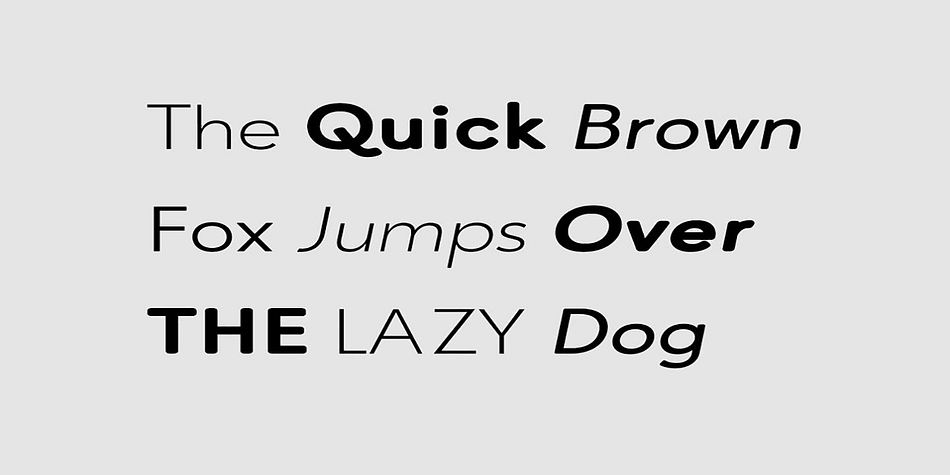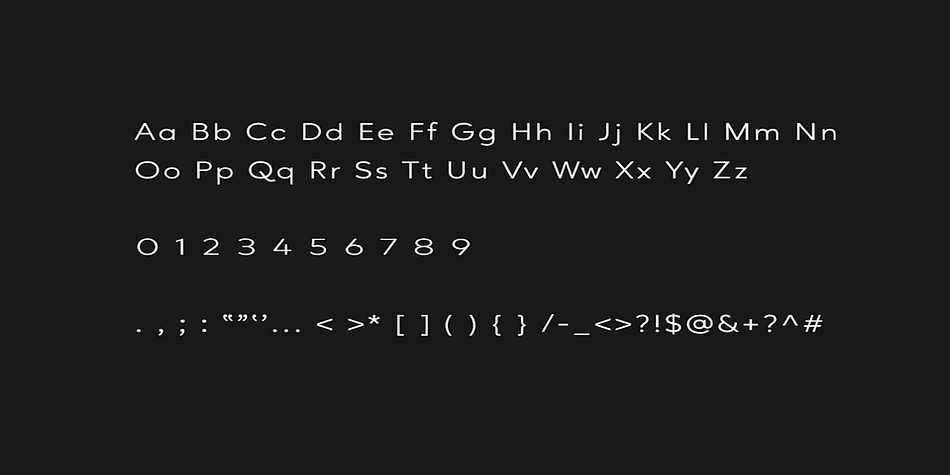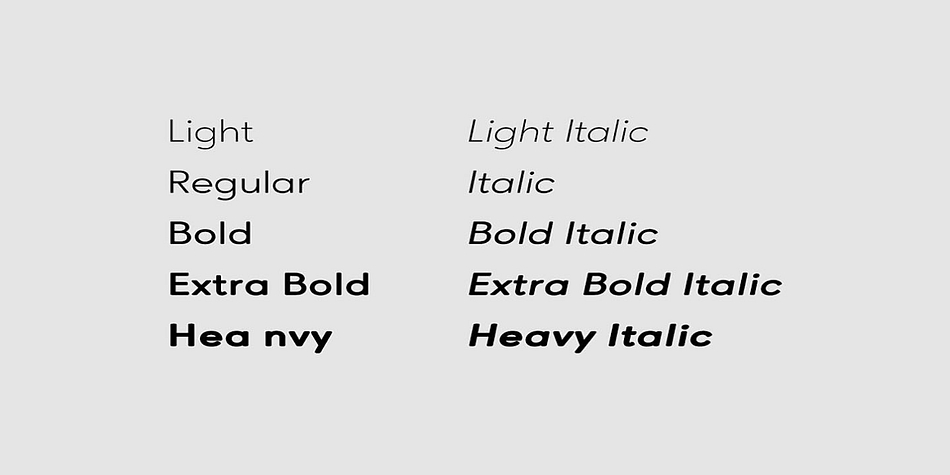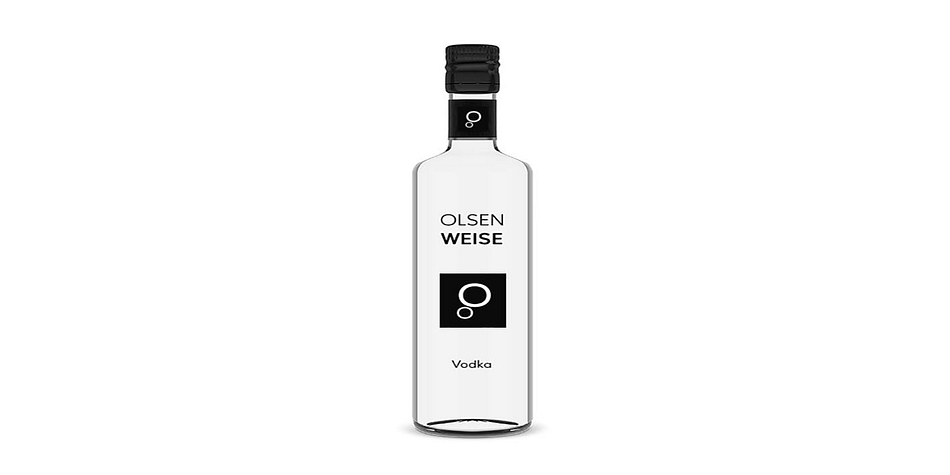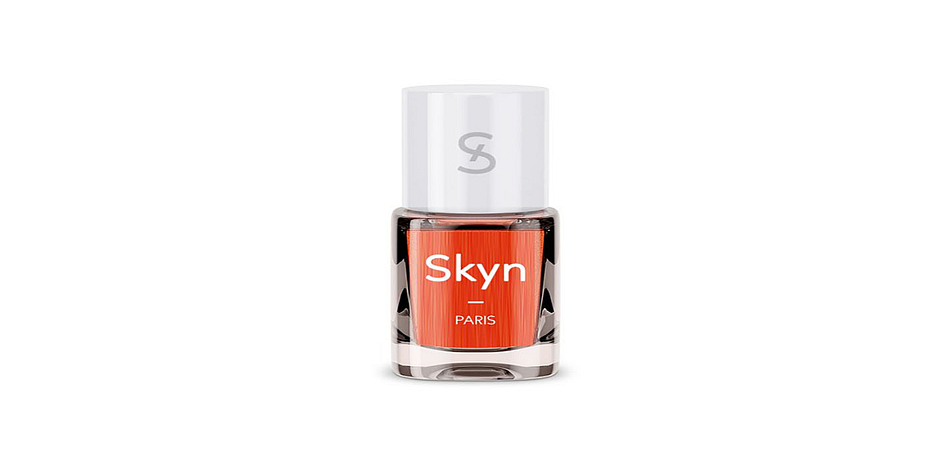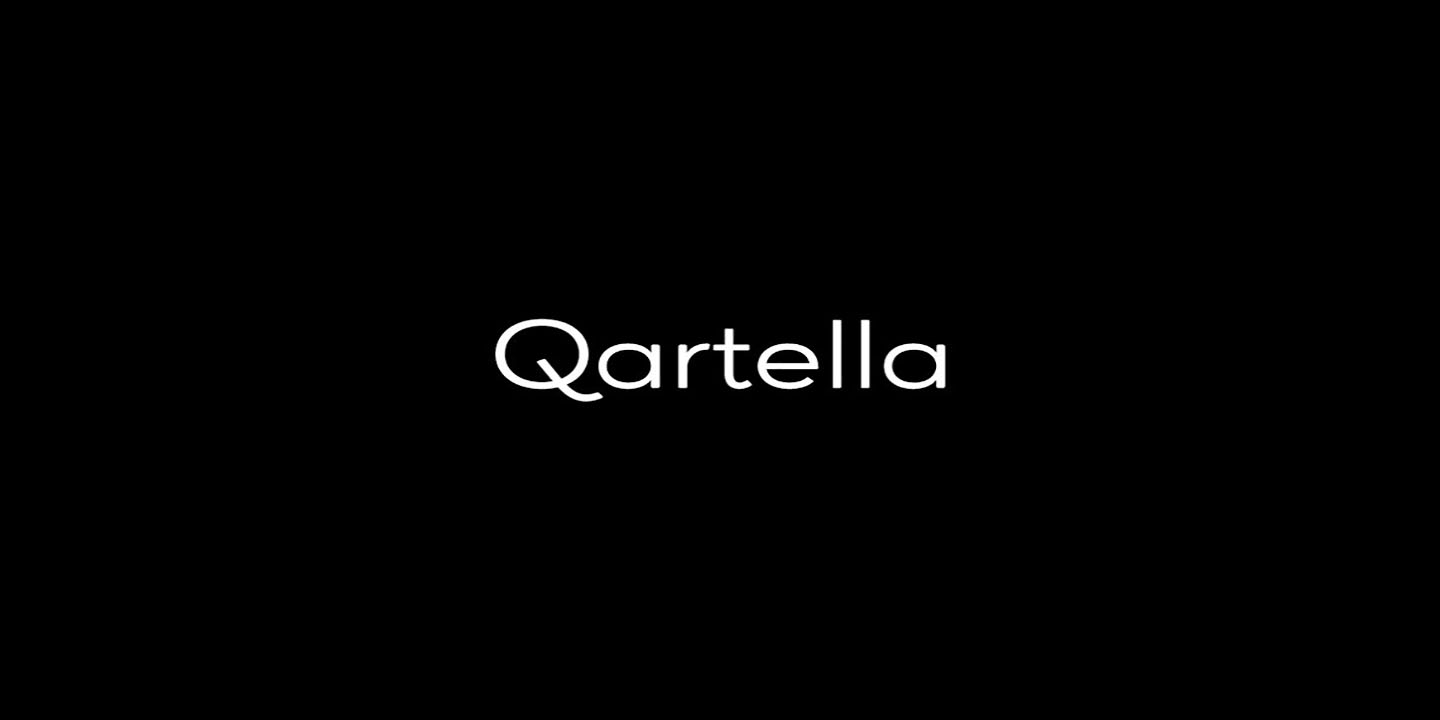
QARTELLA
QARTELLA is a sans serif font family. This typeface has ten styles and was published by Fontastica.
Qartella - A clea sans-serif typeface for any kind of content, which can also be a perfect display / branding / logo font. Just one look and you will notice the unique flair of this typeface which will make it perfect for logotypes, headlines, branding materials, corporate identities, web & print purposes without any limits. Adding extra letter-spacing will make this font perfect for minimal headlines and logotypes as shown in demo graphics.
This typeface now comes with extended language support including Western European & Central European sets. A total of 249 glyphs are included. The family includes a total of 10 fonts having 5 weights (Light / Regular / Bold / Extra Bold / Heavy) as well as Italic versions of all weights.